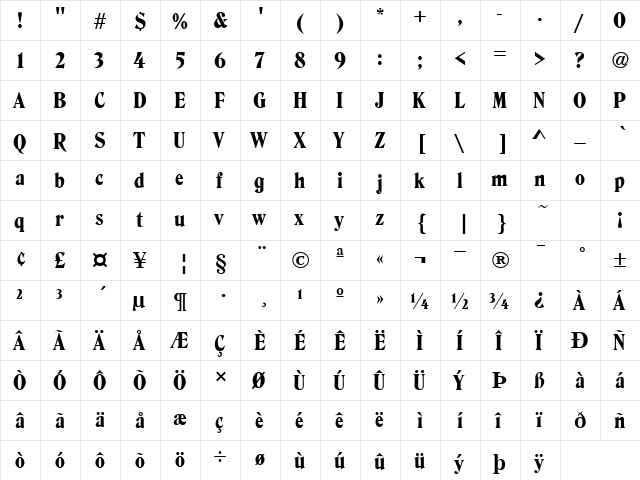
Hawkins Regular
Design Context for Hawkins Typeface
Hawkins offers clean, dependable letterforms without strong stylistic allegiance, making it a practical choice for designers who need flexibility.
Pro Tip: Pair Hawkins with a font of contrasting weight or personality to build a more expressive typographic hierarchy.